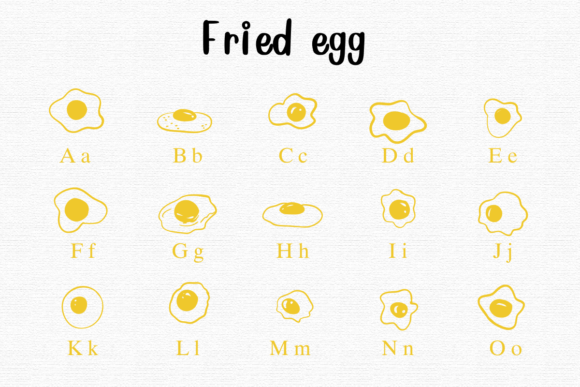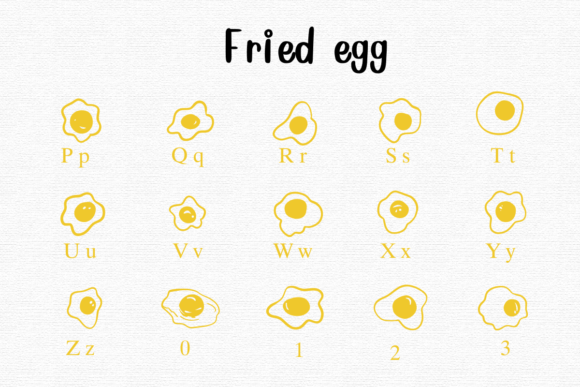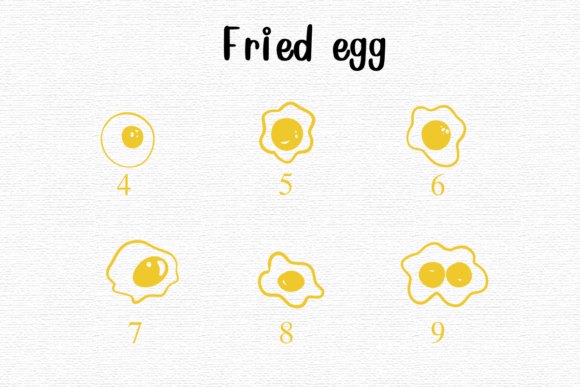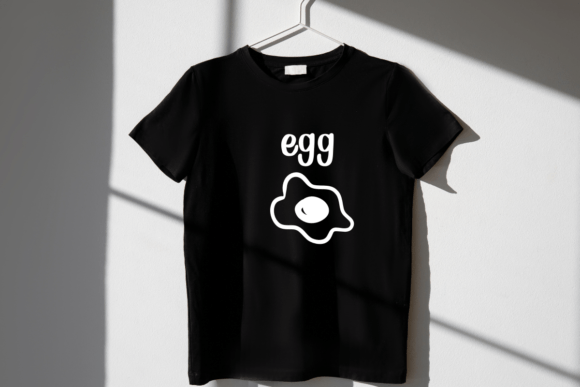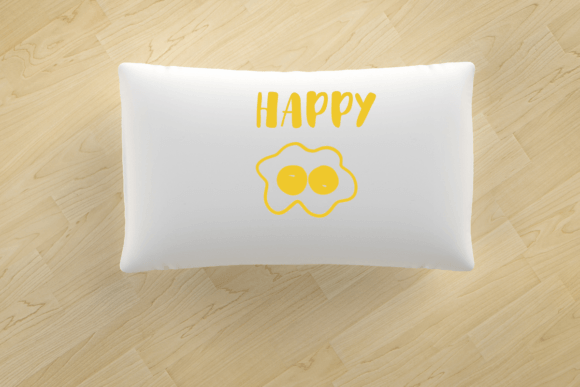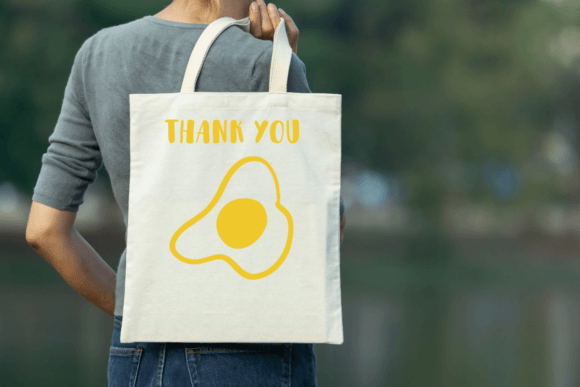
Fried Egg Font: The Playful Dingbat Font That’s Cracking Up the Design World
Are you tired of using the same old boring fonts in your designs? Look no further than the Fried Egg Font, a fun and quirky dingbat font that’s sure to crack up your creative projects. Imagine writing with fun shapes instead of letters, where each character looks like a deliciously yummy fried egg. Sounds egg-cellent, right?
The Concept Behind Fried Egg Font
The Fried Egg Font is a type of dingbat font, which means it’s made up of symbols and shapes rather than traditional letters. But what makes it truly unique is that each character in the font is designed to resemble a fried egg. Yes, you read that right – a fried egg! The font’s creator had a blast designing each letter to look like a tasty breakfast treat, complete with a round yolk and a crispy white border.
Using Fried Egg Font in Your Designs
So, how can you use the Fried Egg Font in your designs? The possibilities are endless! Here are a few ideas to get you started:
• Kids’ party invitations: Add a playful touch to your kids’ party invitations with the Fried Egg Font. Imagine the excitement on your child’s face when they see their name written in egg-shaped letters!
• Food blogs and recipes: If you’re a food blogger or a chef, the Fried Egg Font is a great way to add some whimsy to your recipes and food-related content. Use it to title your recipes or create fun headings for your blog posts.
• Crafting and DIY projects: The Fried Egg Font is perfect for crafters and DIY enthusiasts who love to add a personal touch to their projects. Use it to create fun and playful labels, signs, or titles for your crafts.
Tips for Working with Fried Egg Font
Here are a few tips to keep in mind when working with the Fried Egg Font:
• Use it sparingly: While the Fried Egg Font is fun and playful, it can be overwhelming if used excessively. Use it sparingly to add a pop of personality to your designs.
• Experiment with colors: The Fried Egg Font looks great in bright, bold colors. Experiment with different colors to find the perfect combination for your design.
• Pair it with a complementary font: For body text, pair the Fried Egg Font with a clean and simple font to create visual contrast.
The Benefits of Using Dingbat Fonts like Fried Egg
Dingbat fonts like Fried Egg offer a range of benefits for designers and crafters. Here are a few:
• Add a touch of personality: Dingbat fonts allow you to add a touch of personality to your designs, making them more engaging and fun.
• Create visual interest: Dingbat fonts can help create visual interest in your designs, making them more noticeable and attention-grabbing.
• Stand out from the crowd: Using a unique dingbat font like Fried Egg can help your designs stand out from the crowd and establish your brand identity.
Font Name Fried Egg Font
Author Nongyao
The Fried Egg Font is a fun and playful dingbat font that’s sure to crack up your designs. With its unique egg-shaped characters, it’s perfect for adding a touch of personality to your creative projects. Whether you’re a designer, crafter, or DIY enthusiast, the Fried Egg Font is a great way to add some whimsy and visual interest to your work. So why not give it a try and see what egg-cellent creations you can come up with?
• The Fried Egg Font is a dingbat font made up of egg-shaped characters.
• It’s perfect for kids’ party invitations, food blogs, and crafting projects.
• Use it sparingly and experiment with colors to get the best results.
• Dingbat fonts like Fried Egg can add personality, visual interest, and help you stand out from the crowd.